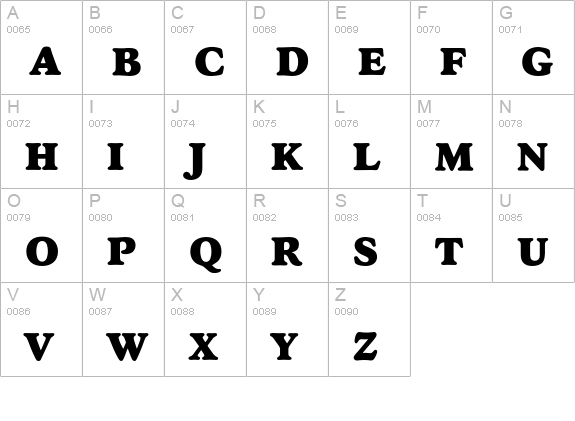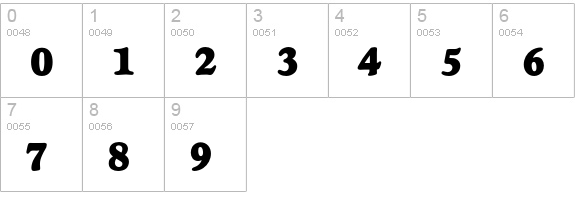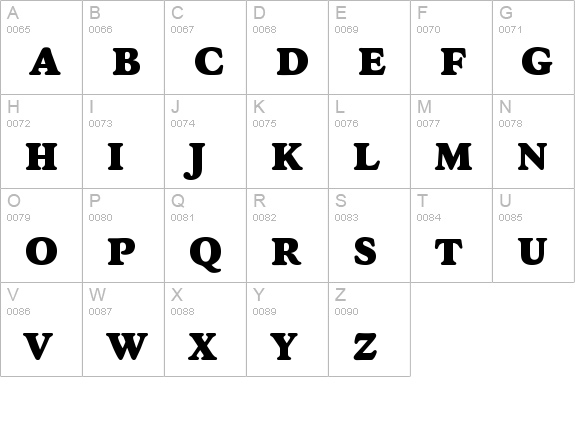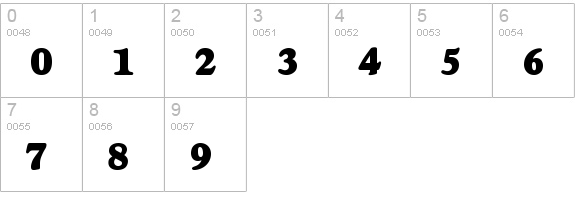
StratfordEF-Black Font Details
StratfordEF-Black is a maximum-weight, dramatic variant in the StratfordEF typeface family \xE2\x80\x94 well suited to maximum-impact headlines, posters, and packaging.
StratfordEF-Black font is a bold and stylish typeface that exudes elegance and sophistication. With its clean lines and modern aesthetic, this font is perfect for creating eye-catching designs that demand attention. The striking black weight of StratfordEF-Black adds a touch of drama and impact to any project, making it ideal for headlines, branding, and promotional materials. The best part? StratfordEF-Black font is available for free download at FontsMarket.com. Simply visit the website to access this versatile and professional font at no cost. Whether you're a designer, marketer, or creative professional, StratfordEF-Black font is sure to elevate your projects and leave a lasting impression. Download it today and unleash your creativity with this stunning typeface.